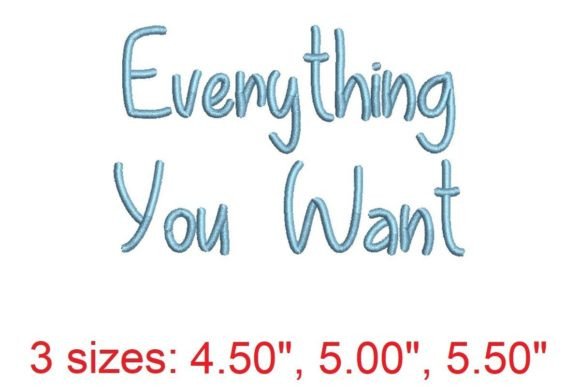
Everything You Want Embroidery Font
The Everything You Want Embroidery Font is a standout addition to any Creative Fabrica embroidery collection. As an experienced designer, I was immediately drawn to its clean, modern aesthetic and the versatility it offers for a wide range of apparel projects. Whether you're working on a small shop product or a boutique brand, this font has the potential to elevate your designs with its balanced structure and expressive character.
First Impressions: Visual Personality and Stitching Mood
From the moment I viewed the Everything You Want Embroidery Font, I noticed its confident yet approachable vibe. The font feels both premium and practical, making it ideal for a variety of styles—from casual t-shirts to more polished sweatshirts. Its detail level is impressive, with subtle flourishes that add visual interest without overwhelming the design. This makes it perfect for custom apparel where clarity and style are equally important.
The stitching mood of the font is smooth and consistent, which is crucial for machine embroidery design. It doesn’t have overly intricate elements that could complicate the process, but it still manages to feel unique and memorable. Whether you’re using it for a single word or a full phrase, it maintains its integrity across different sizes and placements.
Performance Across Apparel Projects
For sweatshirt embroidery, the Everything You Want Embroidery Font shines as a chest placement option. Its size and spacing make it easy to read while maintaining a stylish presence. On pastel hoodies, it adds a touch of elegance, while on dark apparel, it stands out with strong contrast. The font also works well on oversized garments, where its legibility and proportion are key factors in successful placement.
On t-shirts, it’s a great choice for sleeve accents or back designs, offering a clean and professional look. For tote bag design, it provides a bold yet refined statement that can be customized with various thread colors. In boutique merchandise, it helps reinforce brand identity through consistent typography.
Use Cases and Practical Considerations
When considering where to use the Everything You Want Embroidery Font, there are a few key areas to keep in mind. For small chest placement, the font remains readable without being too cramped. However, if you're planning dense stitch areas, you may need to adjust the stitch density to avoid puckering or distortion.
Stretchy fabrics like fleece or ribbed material require careful stabilizer choice to ensure the design stays intact. Dark garments will benefit from contrasting thread colors to make the font pop. Curved surfaces, such as on a hoodie’s front or a denim jacket, may need slight adjustments to maintain alignment and clarity.
For tiny lettering, the font holds up well, but it’s always wise to test on similar garment fabric before committing to a large batch. If you're working with printable mockups or social media graphics, the font's versatility allows for easy customization and high-quality rendering.
Impact on Brand Identity and Customer Engagement
The Everything You Want Embroidery Font can significantly impact the value of your apparel. As an Etsy seller or handmade product creator, having a consistent and recognizable font helps build trust with customers. It contributes to a professional presentation that makes your small shop product stand out in a crowded market.
Visual consistency is key when building a brand, and this font offers a reliable base for custom apparel. Whether you're creating commercial embroidery products or seasonal outfits, it supports a cohesive look that resonates with your target audience. The font’s ability to adapt to different contexts—like lifestyle product photos or social media graphics—makes it a valuable tool for creative entrepreneurs.
Designer Notes for Optimal Results
As with any digital embroidery file, it's essential to test the Everything You Want Embroidery Font on scrap fabric before final production. This helps identify any issues with hoop size, stabilizer type, or thread color contrast. Checking the stitch density ensures that the design looks sharp and doesn’t become too heavy or sparse.
If you're unsure about the file formats or licensing details, it's best to review the Creative Fabrica product page thoroughly. Confirming these aspects before selling finished product is crucial for compliance and quality control. For those working on printable mockups or Etsy listings, the font’s flexibility allows for easy integration into your workflow.
Final Thoughts: A Versatile Tool for Creative Entrepreneurs
The Everything You Want Embroidery Font is a strong contender for anyone looking to enhance their embroidery projects. Its balance of style and functionality makes it suitable for a wide range of applications, from Back To School themed apparel to everyday wear. Whether you're an embroidery shop owner or a small clothing brand, this font offers a reliable and visually appealing option for your next collection.
By carefully considering placement, fabric texture, and stitch density, you can maximize the potential of this font and create high-quality, professional-looking designs. With the right approach, the Everything You Want Embroidery Font can become a staple in your creative arsenal, helping you deliver exceptional results for your customers.